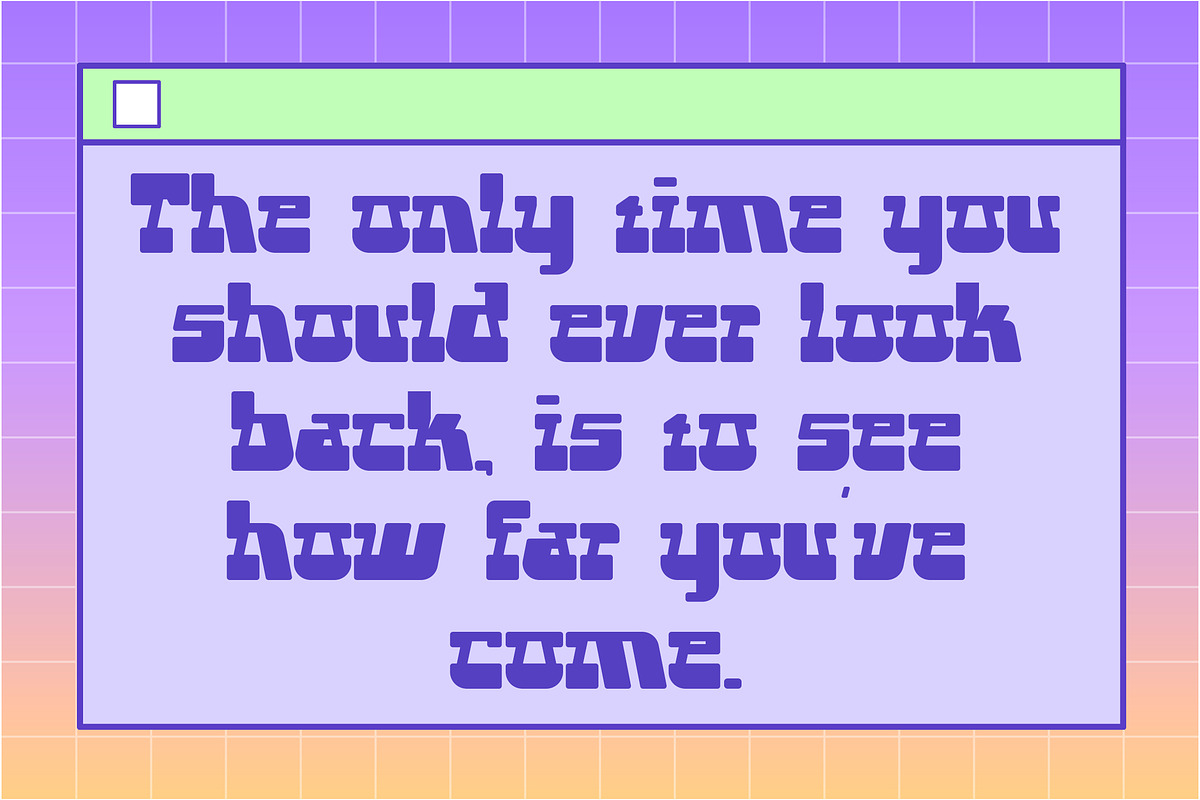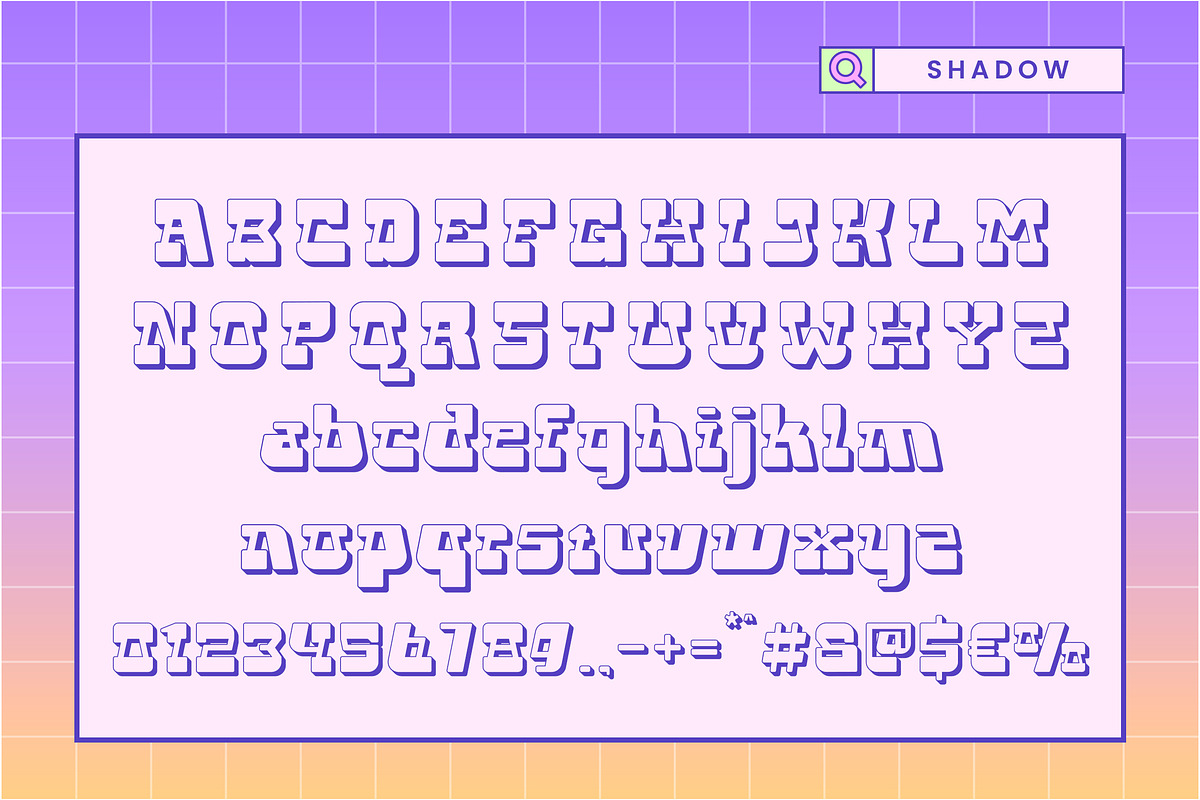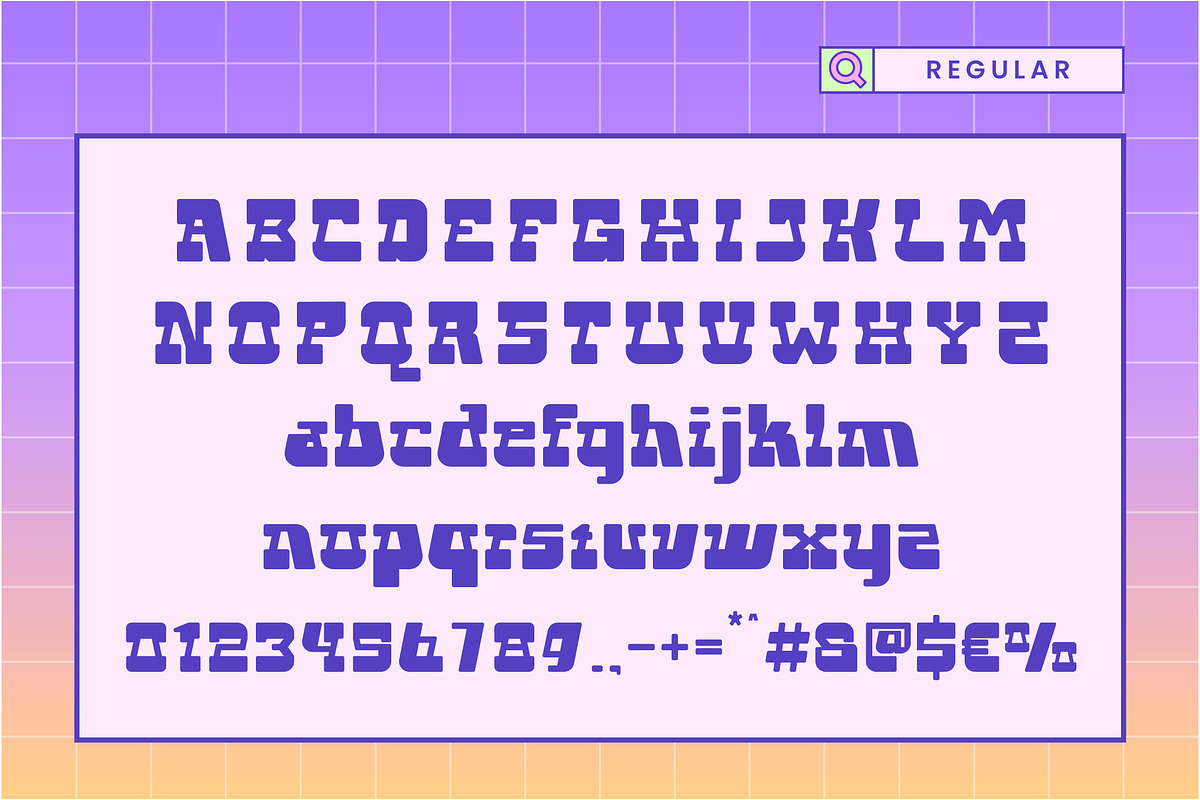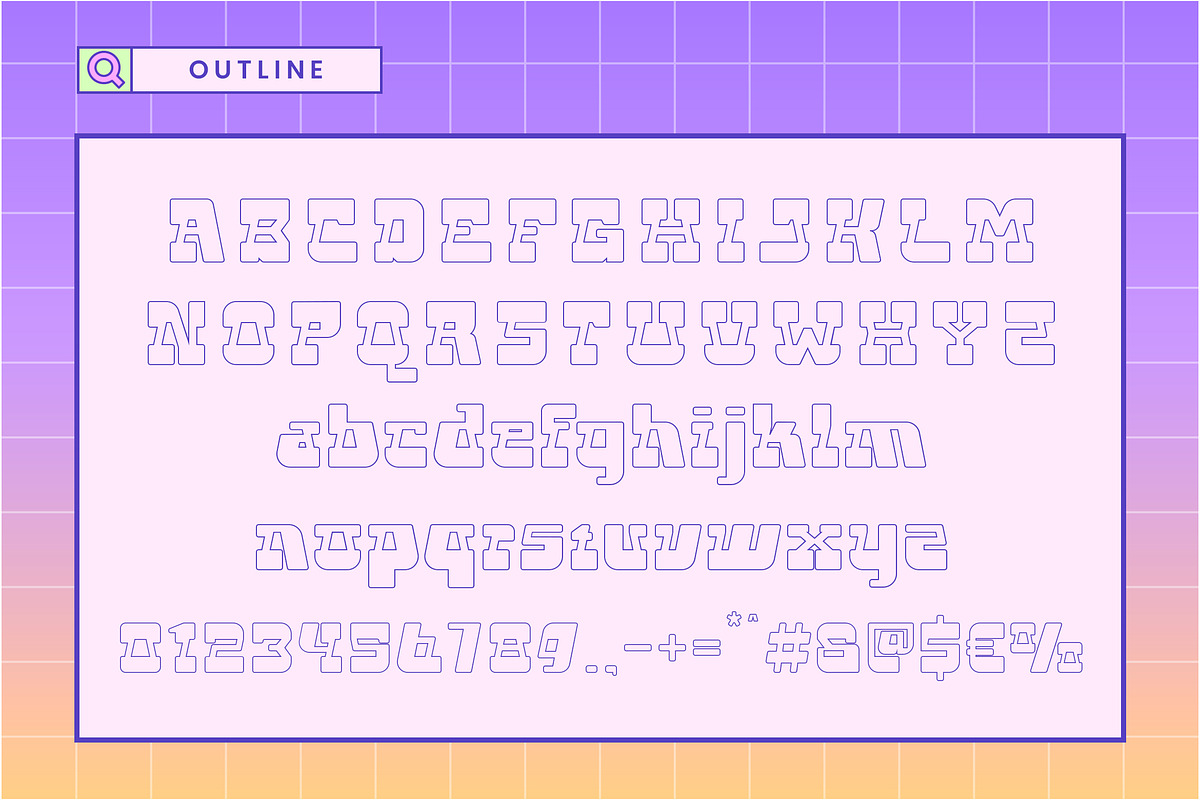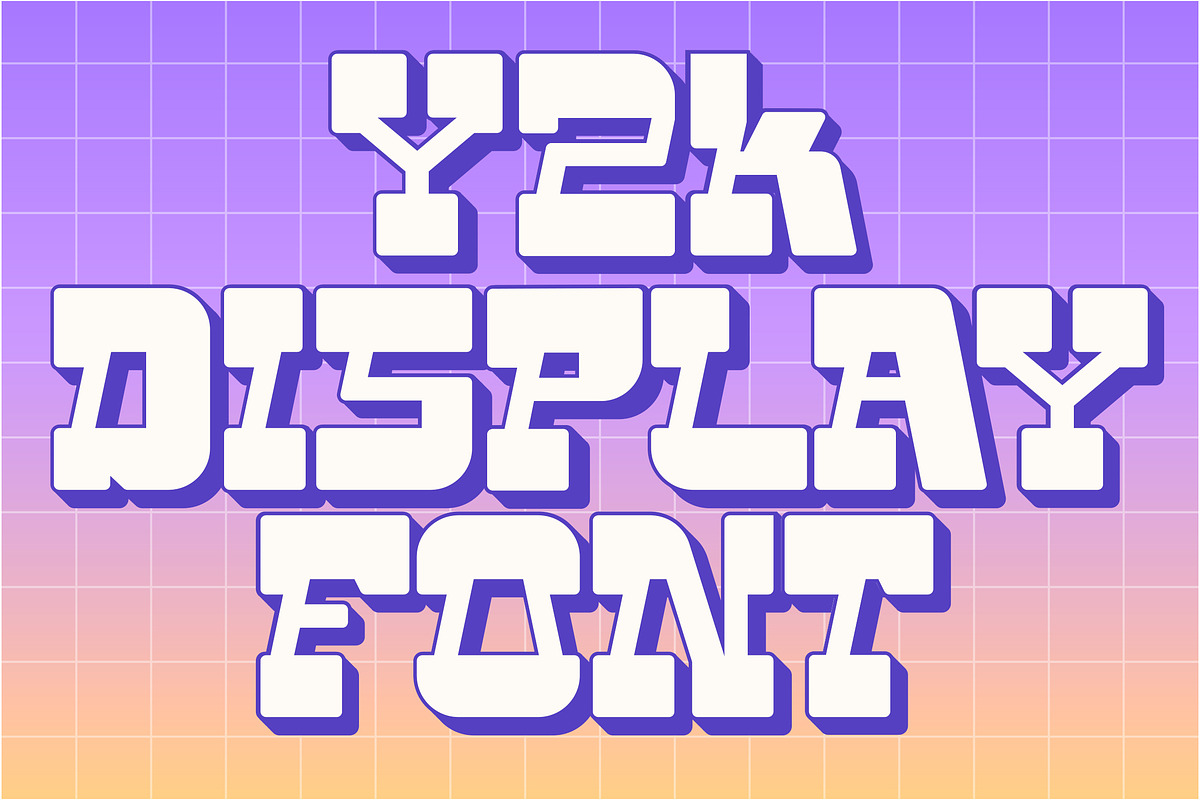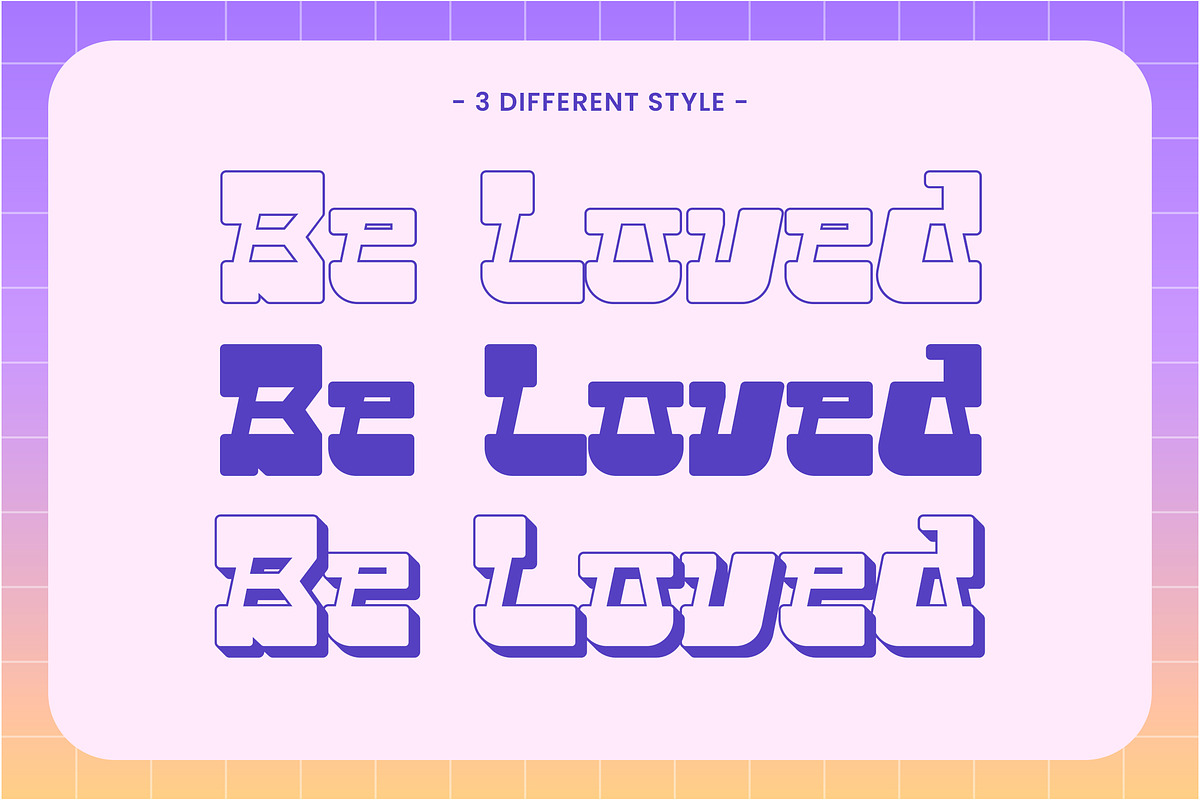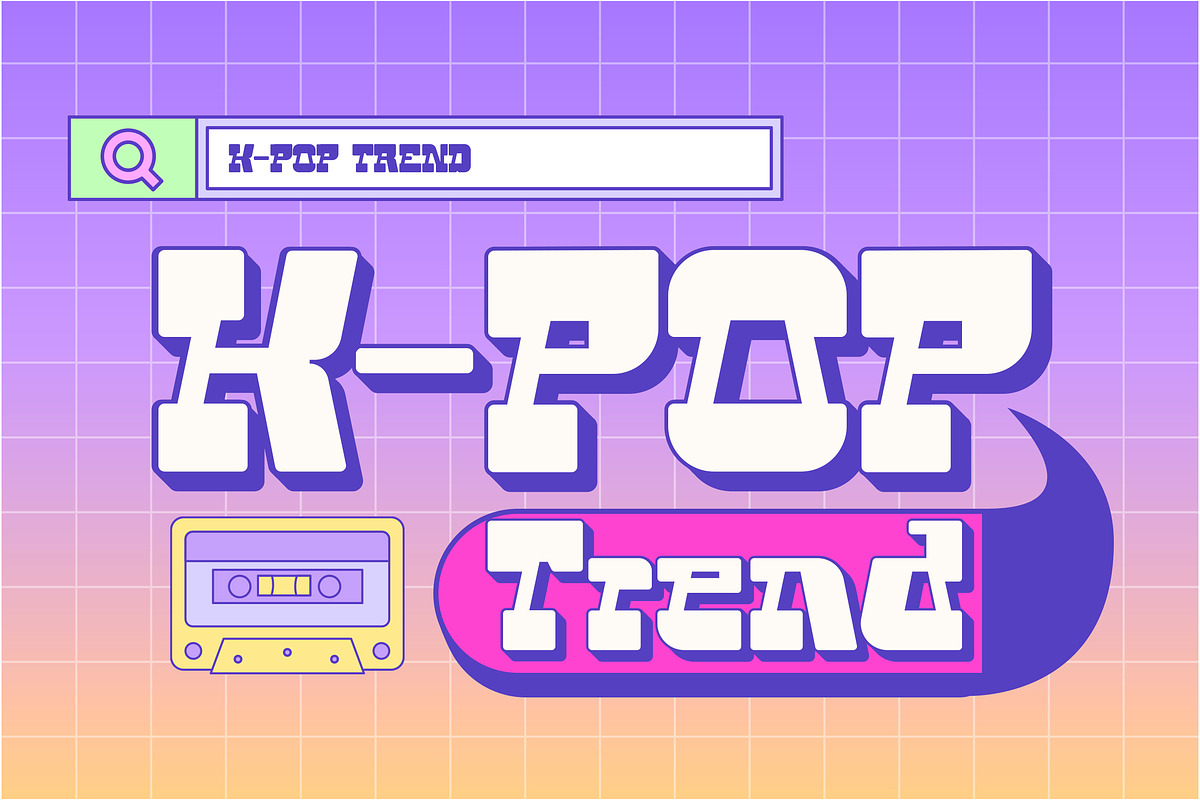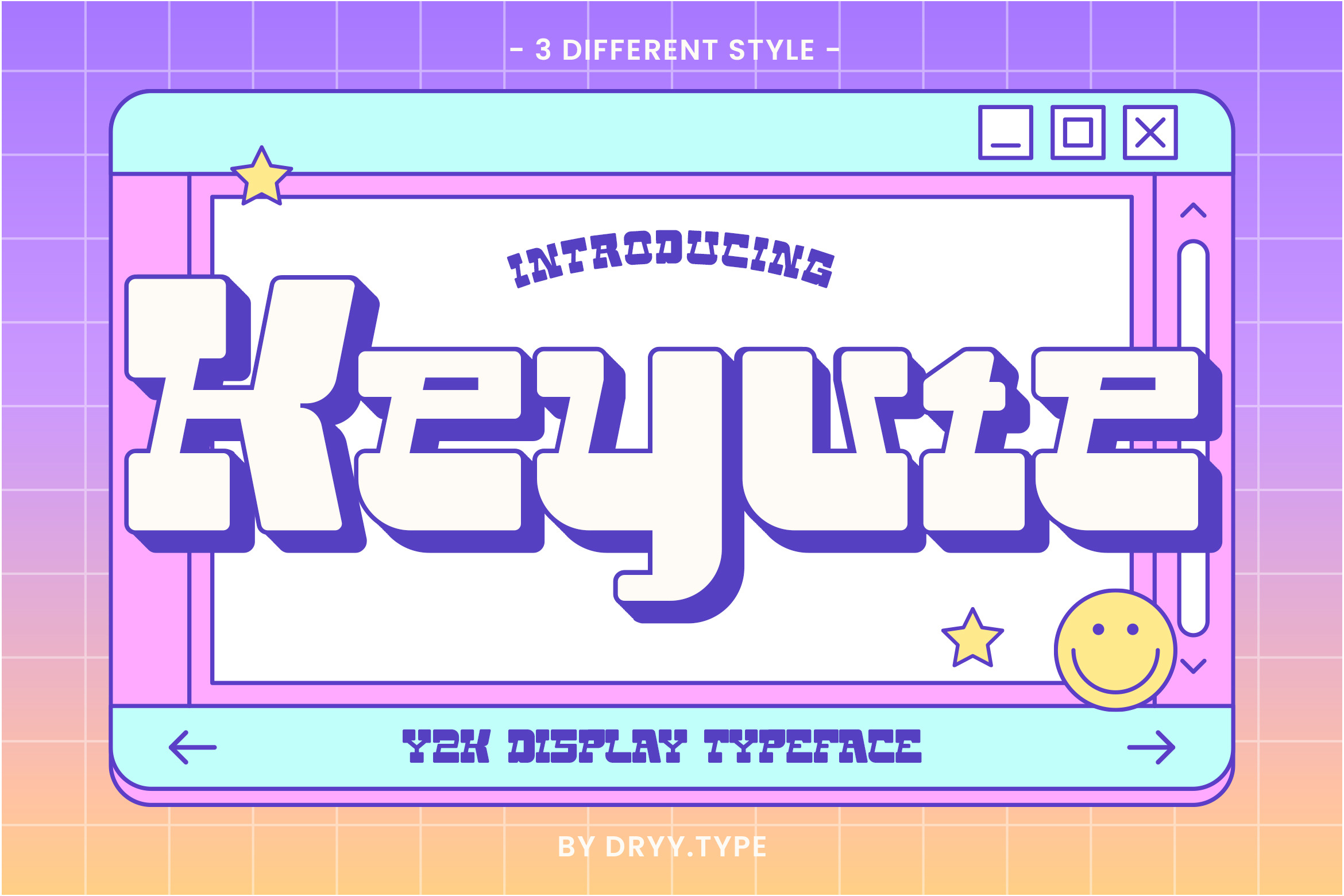
Keyute - Y2k Display Typeface
Keyute Typeface
Keyute Typeface is a cute and fun font. A font inspired by the current K-POP trend, this font I created is very much used this year & is very versatile, it goes well with various designs, elevating it to the highest level. Add this font to your favorite creative ideas and see the results!
Features: Uppercase, Lowercase, Ligature & Multilingual Support 3 Different Style